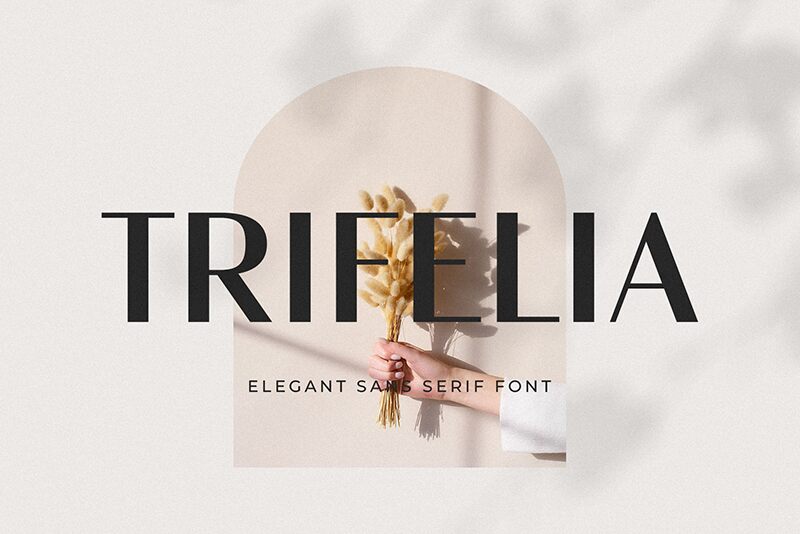
Trifelia is a striking sans-serif font that commands attention. With its bold, angular letterforms and robust construction, this typeface exudes a sense of strength and confidence. The alluring interplay of sharp edges and subtle curves lends Trifelia a distinctive character, making it a captivating choice for a variety of design applications.
From eye-catching headlines to impactful branding, this font's versatility shines through. Its assertive presence can lend a sense of authority to editorial content, while its modern aesthetic seamlessly integrates with sleek, contemporary design. Trifelia's ability to balance visual impact with legibility makes it a versatile tool in the hands of discerning designers, whether crafting dynamic digital interfaces or crafting timeless print materials.
Trifelia
Ahmad Sidiq